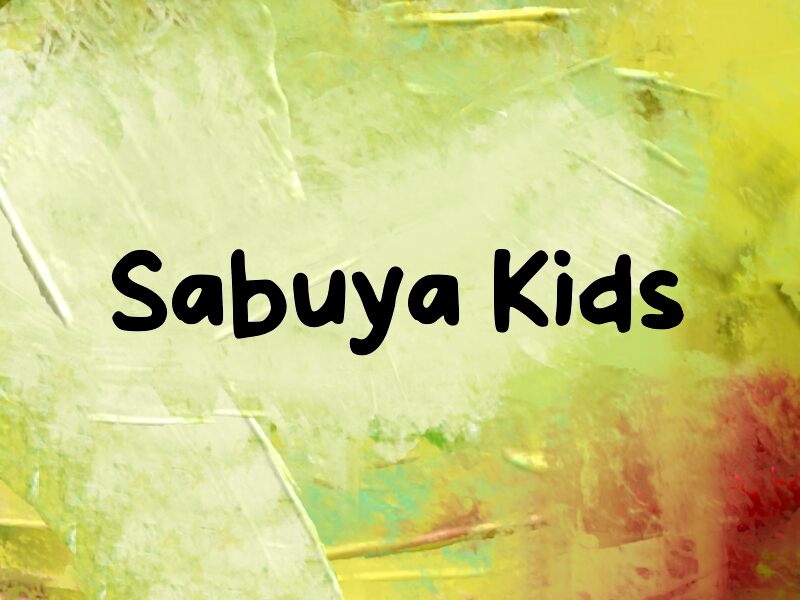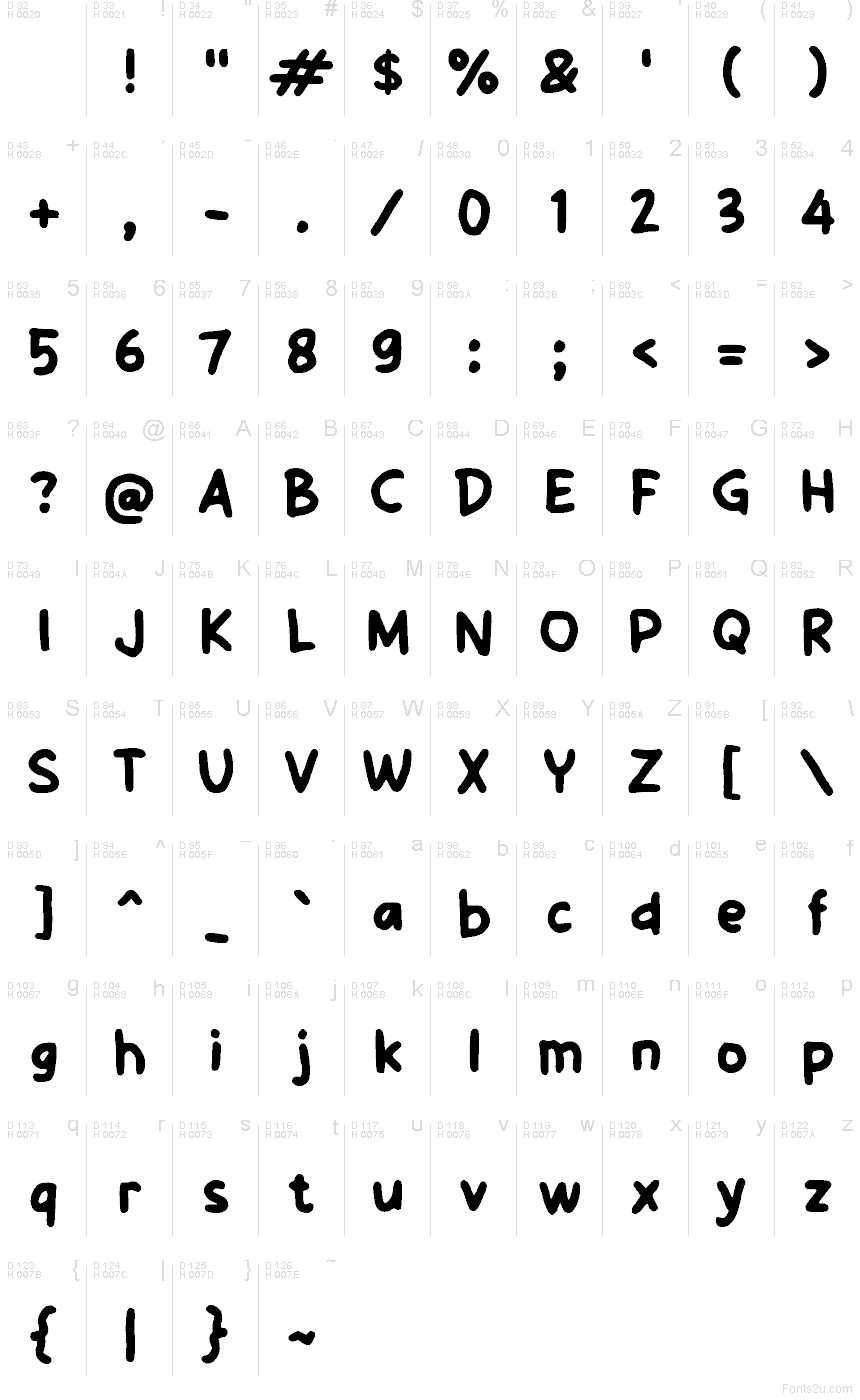
Sabuya Kids
Sabuya Kids font by wep is a free comic display typeface with a bouncy, hand-drawn feel that looks like it was lettered with a thick marker. Its rounded shapes, soft curves, and slightly uneven rhythm give it a friendly, giggly energy that children instantly recognize and trust. The letters feel chunky and touchable, filling space with confident strokes that stay playful without slipping into chaos, so your message stays clear even when the design gets loud.
Using Sabuya Kids, you can bring warmth and personality to classroom posters, children’s book covers, birthday invitations, toy packaging, YouTube thumbnails, and kid-focused app interfaces. This free font shines at larger sizes where its inky, organic edges can really show, and it pairs easily with a clean geometric sans for small supporting text. Keep Sabuya Kids as your headline star and let simpler fonts handle the fine print.